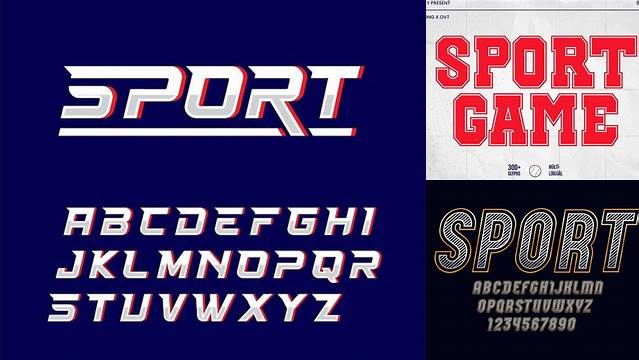
Sport Font: Find The Best On Freepik
Hey guys! Are you looking for that perfect sport font to give your project a dynamic edge? Well, you've come to the right place! Finding the right font can be a game-changer, whether you're designing a sports team logo, creating eye-catching posters, or developing a killer website. And guess what? Freepik is a treasure trove of amazing sport fonts just waiting to be discovered. Let's dive in and explore how to find the best ones!
What is Sport Font?
Before we jump into Freepik, let's quickly define what we mean by a sport font. Generally, these fonts are designed to evoke feelings of energy, speed, and strength. They often feature bold, dynamic letterforms with sharp angles, aggressive curves, and a general sense of forward motion. Sport fonts are versatile and can be used in various contexts, from athletic wear designs to video game interfaces. The key is to choose a font that aligns with the specific sport or activity you're representing. Now, let's see what Freepik has to offer!
1. Best Sport Fonts for Logos
Logos are the face of a brand, and in the sports world, they need to convey power and dynamism. When selecting the best sport fonts for logos, consider fonts that are easily readable even at small sizes. Bold, sans-serif fonts are often a great choice because they offer clarity and impact. Think about brands like Nike or Adidas β their logos use clean, strong fonts that are instantly recognizable. On Freepik, you can find numerous options that fit this description. Look for fonts with a solid, geometric structure that communicates stability and confidence. Also, consider the overall aesthetic of the logo; the font should complement the design and enhance the message you're trying to convey. Don't be afraid to experiment with different fonts to see which one best captures the essence of the team or brand. Remember, the font should be as enduring as the team's legacy, so choose wisely!
2. Free Sport Fonts on Freepik
3. Premium Sport Fonts on Freepik
If you're looking for something extra special, premium sport fonts on Freepik might be the way to go. Premium fonts often come with more features, such as multiple weights, styles, and glyphs, giving you greater flexibility in your designs. They are typically created by professional designers who put a lot of effort into crafting high-quality typefaces. Investing in a premium font can elevate your project and give it a unique, polished look. When browsing premium fonts, pay attention to the details. Look for fonts that have been carefully kerned (the spacing between letters) and that offer a consistent and harmonious appearance. Also, consider fonts that come with additional design elements, such as swashes or alternates, which can add a touch of flair to your designs. While they may cost a bit more, premium fonts can be a worthwhile investment for serious design projects.
4. Bold Sport Fonts for Headlines
For attention-grabbing headlines, you need bold sport fonts that pack a punch. These fonts are designed to stand out and immediately capture the reader's attention. When selecting a bold font, consider the overall tone and message you want to convey. A super bold, blocky font might be perfect for a high-energy sports event, while a slightly more refined bold font could be better suited for a more sophisticated sports brand. Freepik has a wide range of bold fonts to choose from, so take your time and explore the different options. Look for fonts that have a strong visual presence and that are easy to read from a distance. Also, consider the contrast between the font and the background; you want to make sure the headline is legible and eye-catching. With the right bold font, your headlines will command attention and leave a lasting impression.
5. Italic Sport Fonts for Emphasis
To add a touch of speed and dynamism, italic sport fonts can be incredibly effective. The slanted letterforms create a sense of movement and can be used to emphasize certain words or phrases. When using italic fonts, it's important to use them sparingly; too much italic text can be difficult to read. Instead, use italics to highlight key points or to add a subtle sense of energy to your design. On Freepik, you'll find a variety of italic sport fonts that range from subtle to dramatic. Experiment with different styles to see which one best fits your project. Consider using italic fonts in combination with bold fonts to create a dynamic contrast. Just remember to use them judiciously and always prioritize readability.
6. Unique Sport Fonts for Branding
To make your brand stand out, unique sport fonts are essential. These fonts are designed to be different and memorable, helping your brand make a lasting impression. When searching for unique fonts, look for typefaces that have unusual letterforms or distinctive design elements. Freepik is a great place to find these kinds of fonts because it offers a diverse selection from designers around the world. Consider fonts that incorporate geometric shapes, unusual curves, or unconventional details. However, be careful not to choose a font that is so unique that it becomes difficult to read. The goal is to find a font that is both eye-catching and legible. With the right unique font, your brand will be instantly recognizable and memorable.
7. Sport Fonts for Jersey Design
Designing sports jerseys requires a font that is both legible and visually appealing. Sport fonts for jersey design need to be clear and easy to read from a distance, as well as durable enough to withstand the wear and tear of athletic activity. Bold, sans-serif fonts are often a good choice for jerseys because they offer maximum readability. Consider fonts that have a slightly rounded or softened appearance, as these can be more comfortable to wear. On Freepik, you can find numerous fonts that are specifically designed for jersey design. Look for fonts that have been tested for readability and durability. Also, consider the overall aesthetic of the jersey; the font should complement the design and enhance the team's identity. With the right font, your jerseys will look professional and stylish.
8. Modern Sport Fonts
Modern sport fonts often feature clean lines, geometric shapes, and a minimalist aesthetic. These fonts are perfect for brands that want to project a contemporary and forward-thinking image. When searching for modern fonts, look for typefaces that have a sleek and uncluttered appearance. Sans-serif fonts are often a good choice for modern designs because they offer a clean and simple look. On Freepik, you can find a wide range of modern sport fonts that are perfect for various applications. Consider fonts that incorporate negative space or that have a slightly unconventional structure. However, be careful not to choose a font that is so modern that it becomes difficult to read. The goal is to find a font that is both stylish and functional.
So, there you have it! Finding the perfect sport font on Freepik is all about understanding your project's needs, exploring different styles, and choosing a font that aligns with your brand's identity. Happy designing, guys!